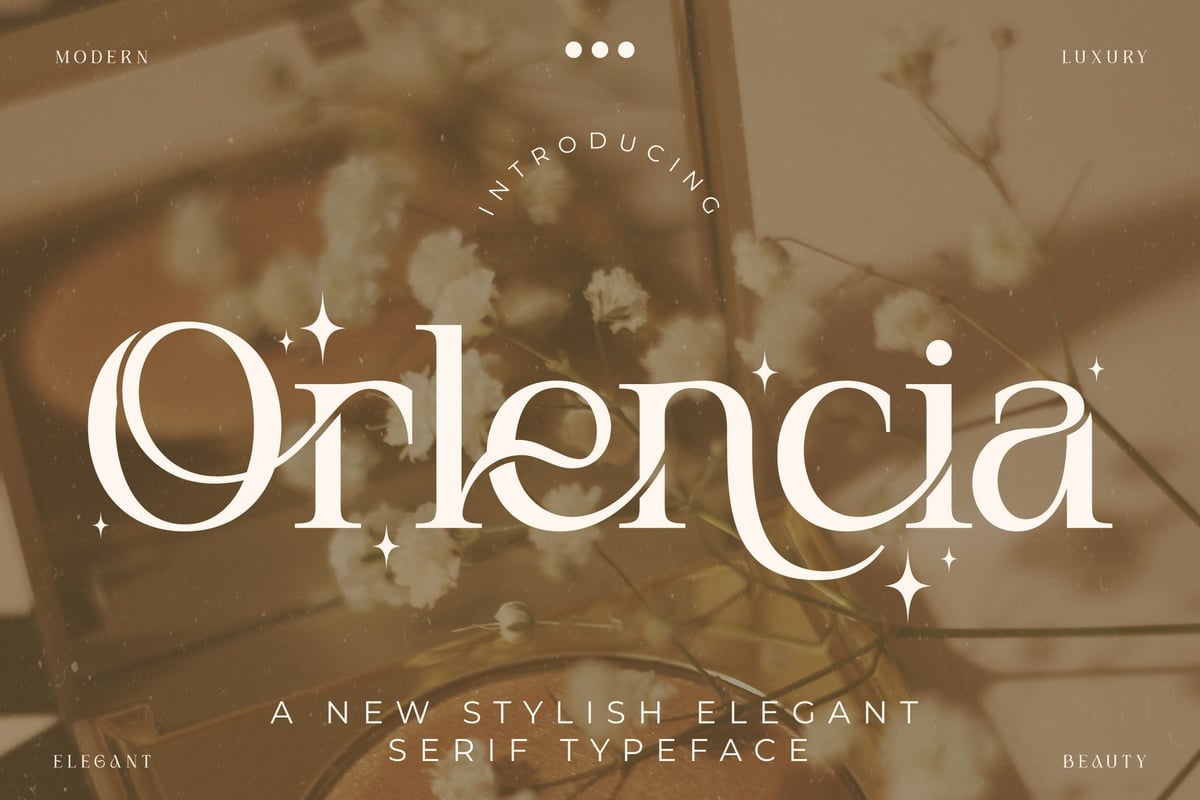
Orlencia – Elegant Modern Serif Font
Orlencia is the luxury serif typeface that brings timeless elegance and modern sophistication to every design it touches.
Crafted with graceful curves, refined stroke contrast, and stylish ligatures, Orlencia blends classic serif tradition with contemporary aesthetics. It's built for designers who need a premium, feminine typographic presence — whether for a high-end brand identity or a delicate wedding suite.
Orlencia is perfect for:
- Fashion Branding
- Luxury Logos
- Beauty & Cosmetic Packaging
- Editorial Design
- Wedding Invitations
- Magazine Layouts
- Social Media Graphics
- Boutique Branding
Font features include:
- Stylish Ligatures
- Alternate Characters
- Elegant Serif Style
Orlencia is designed to elevate any creative project with a sophisticated, polished typographic experience that feels effortlessly refined.